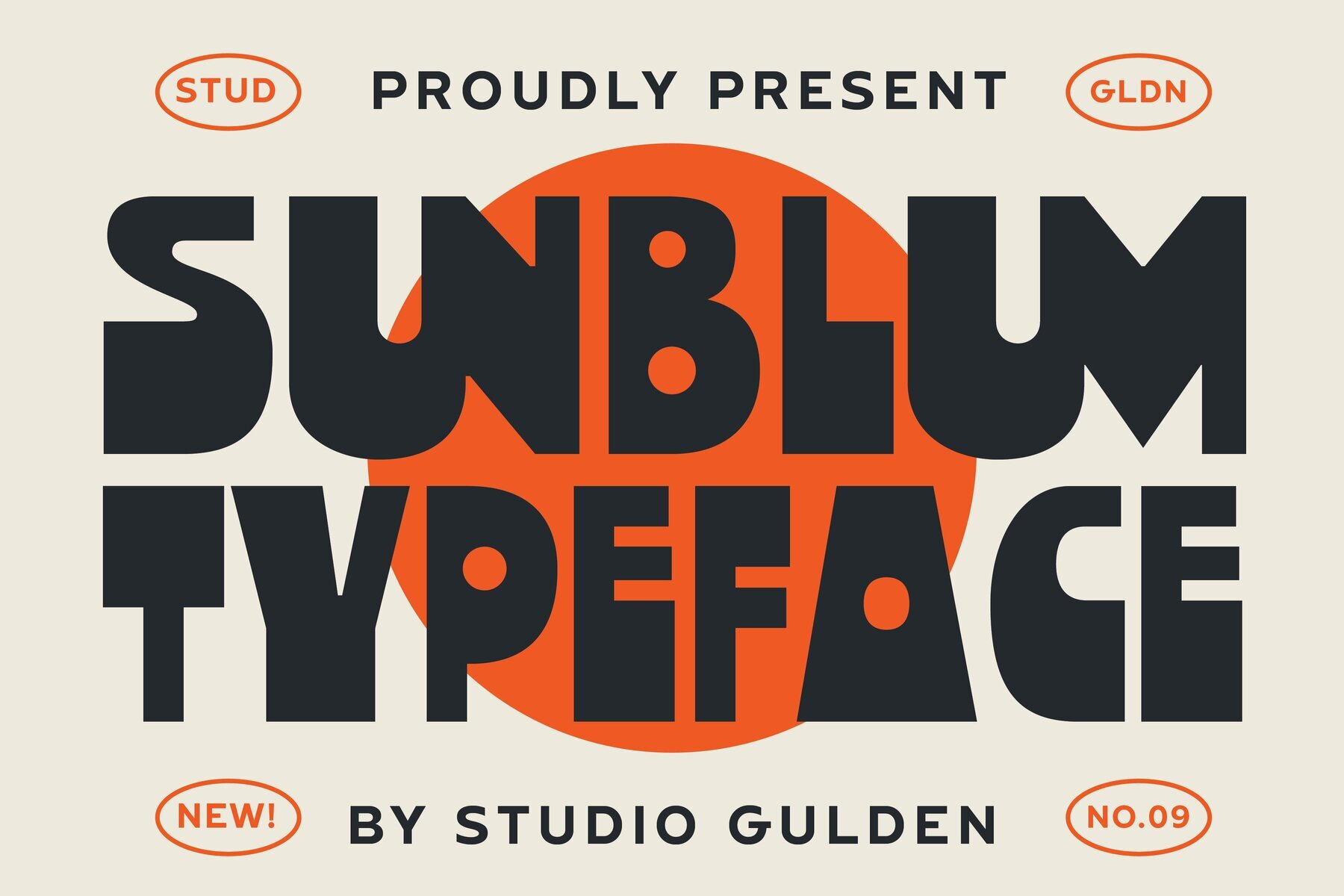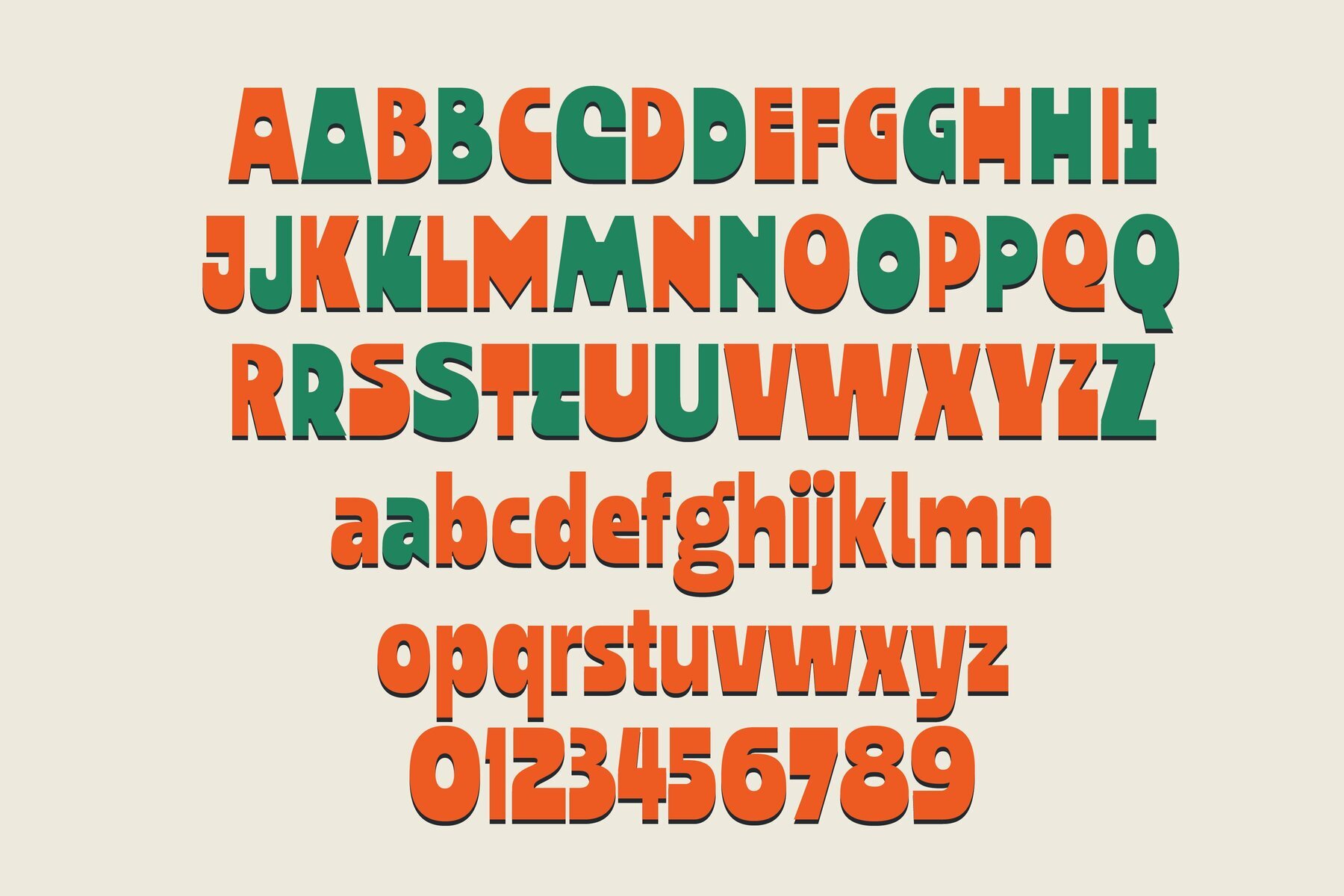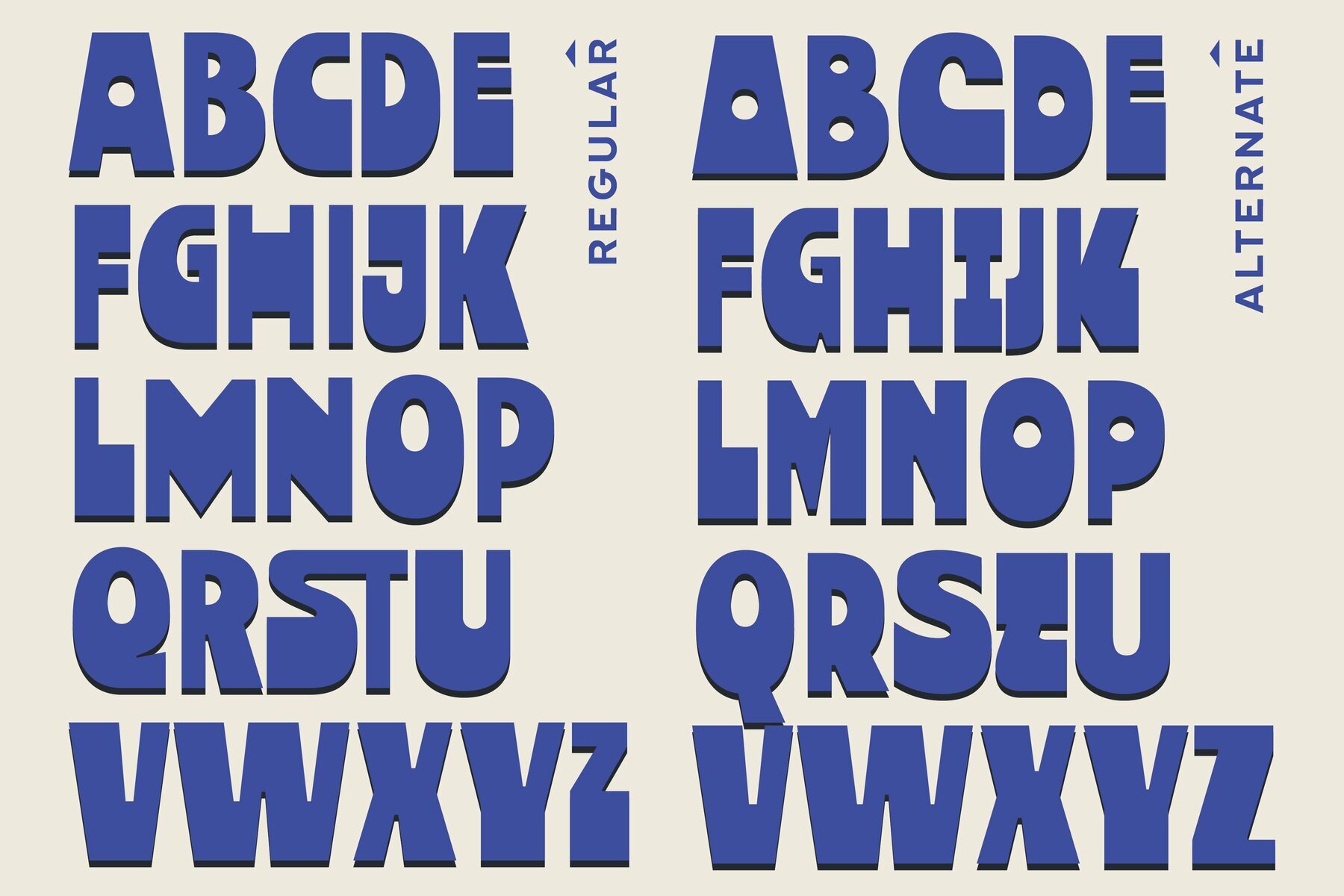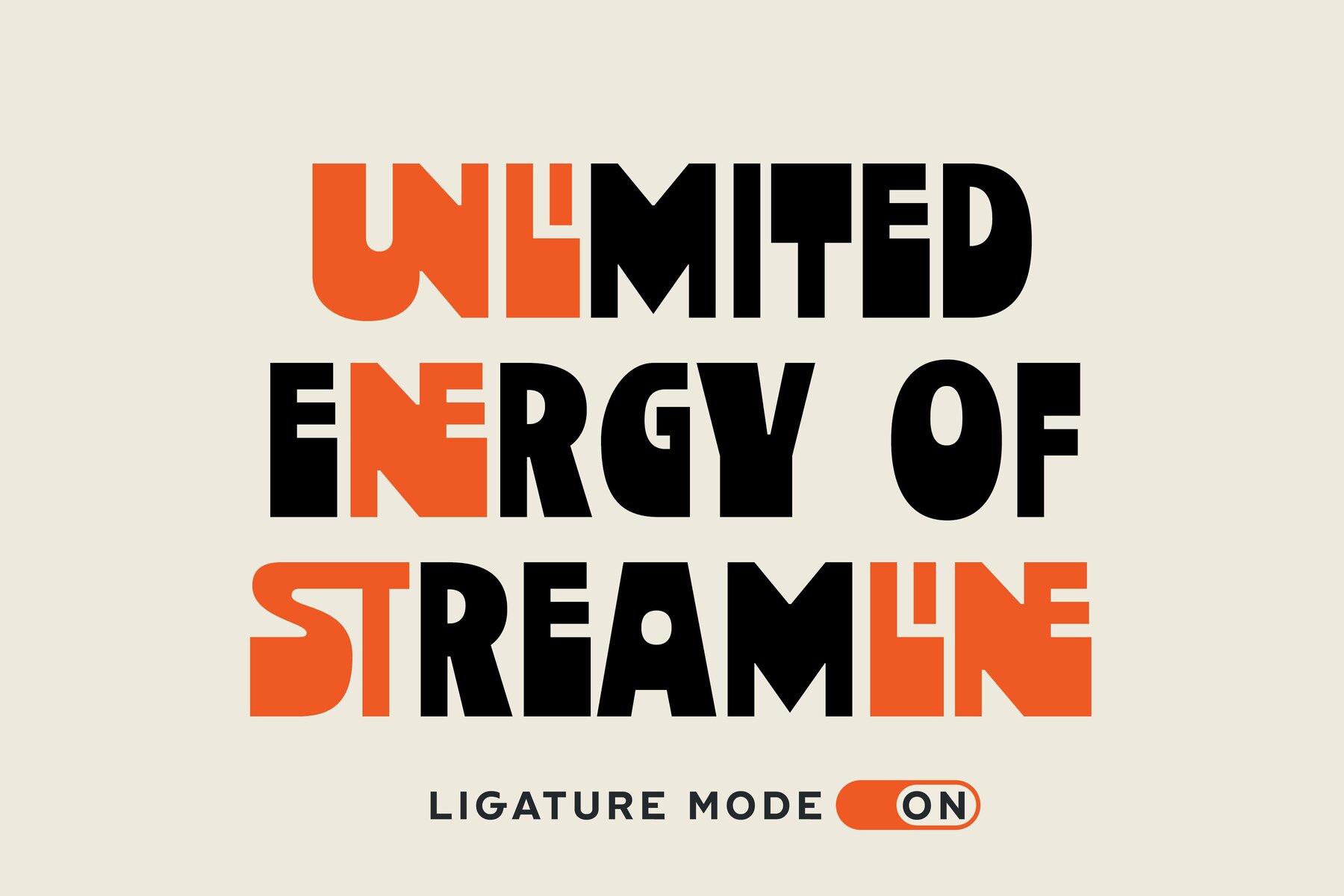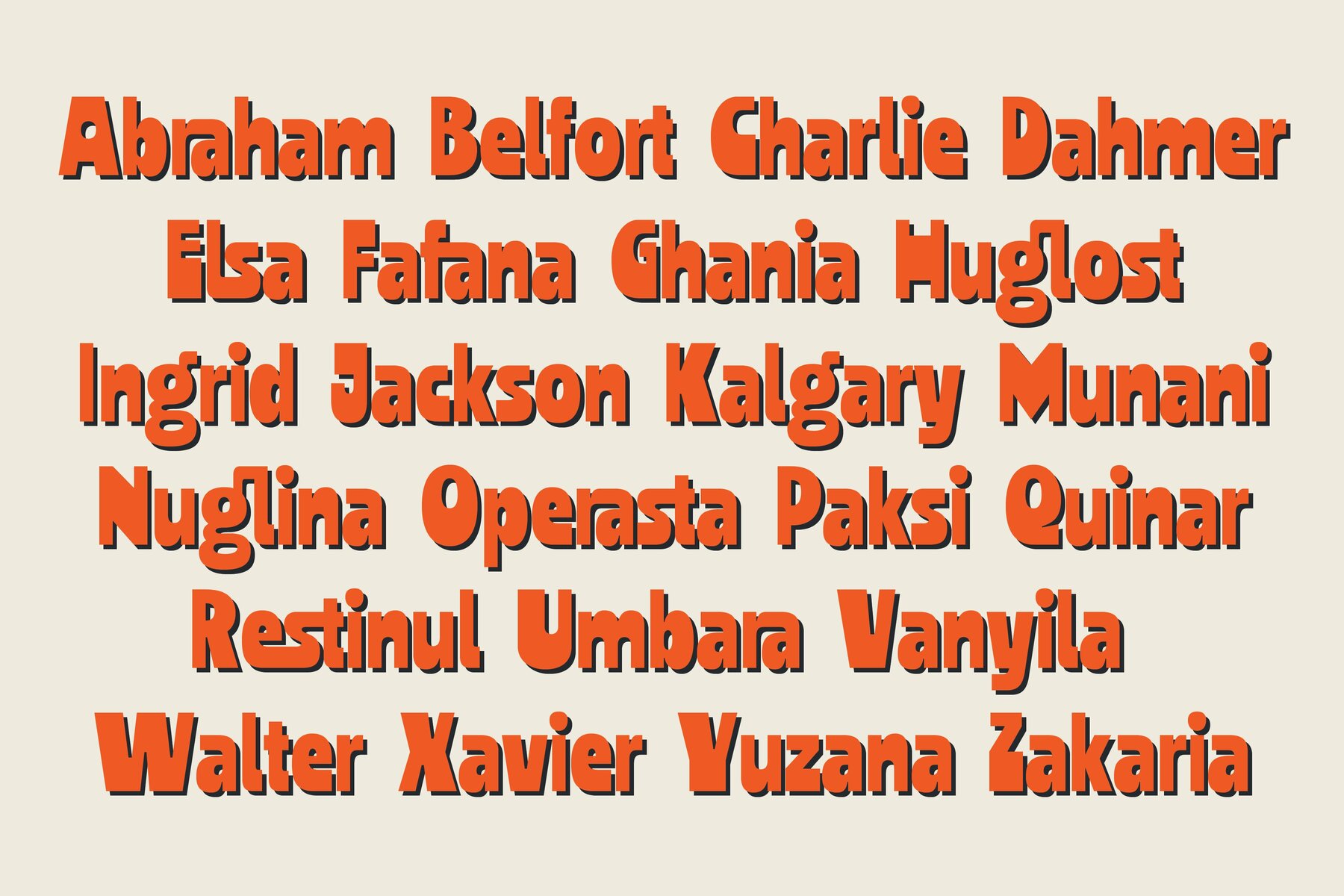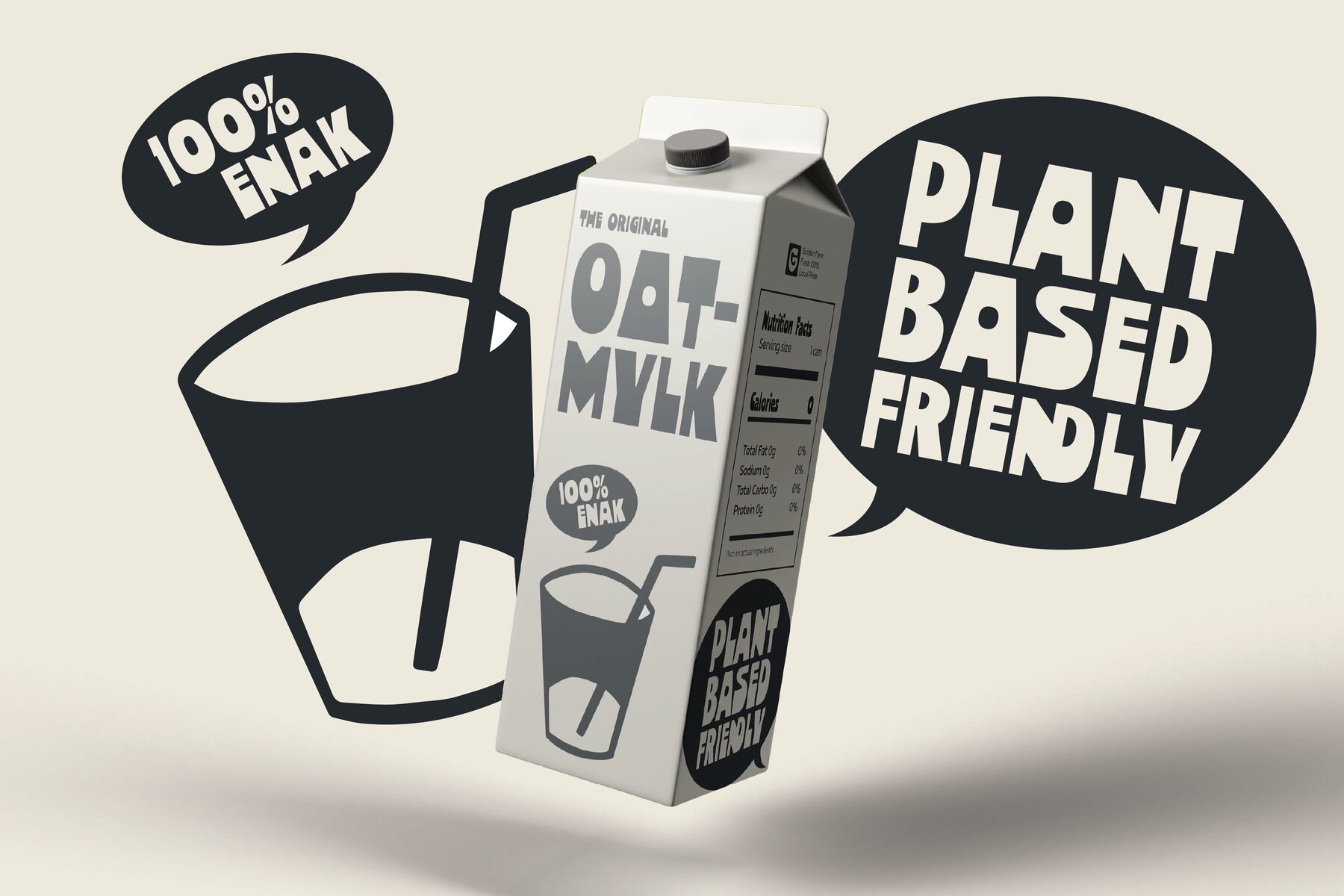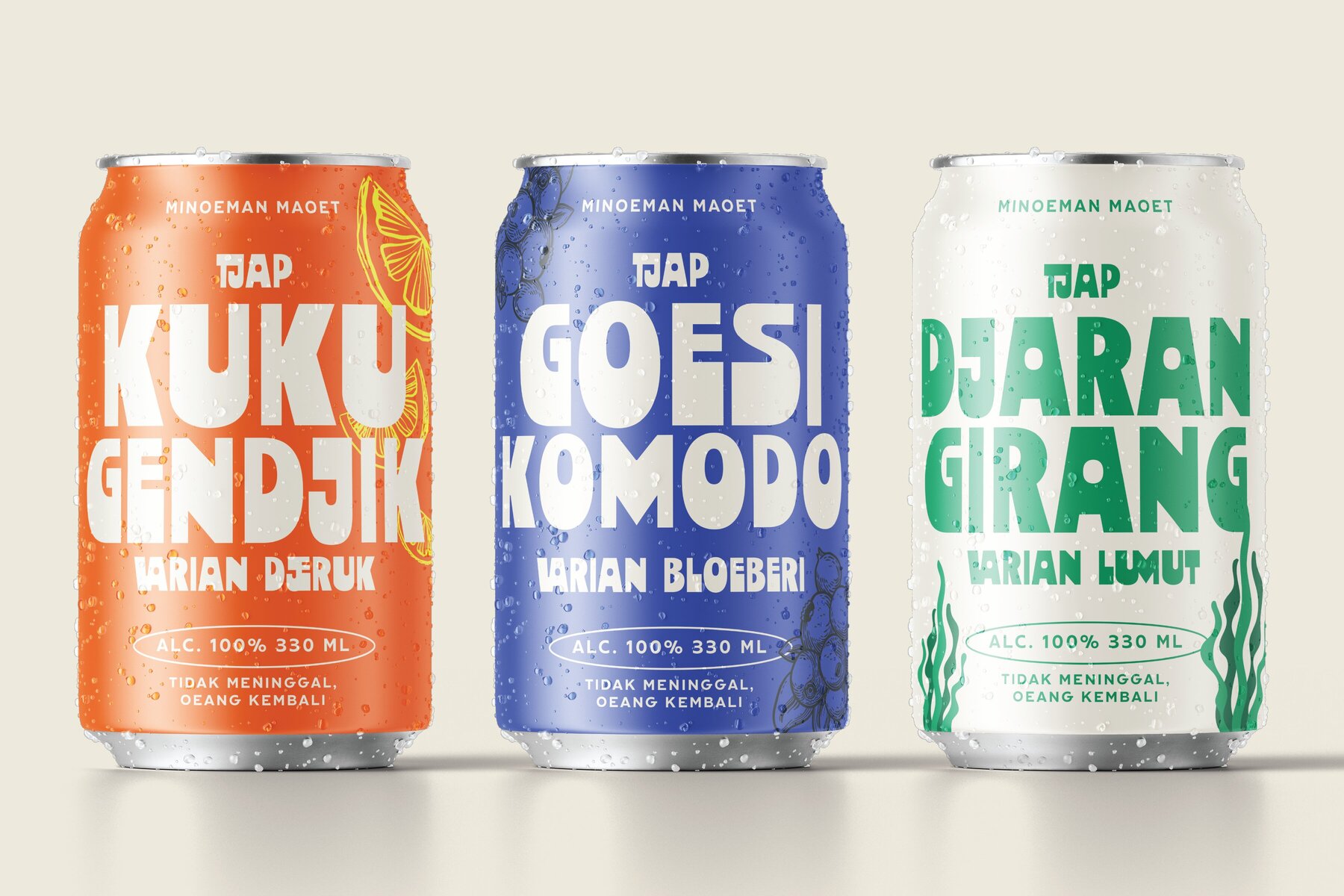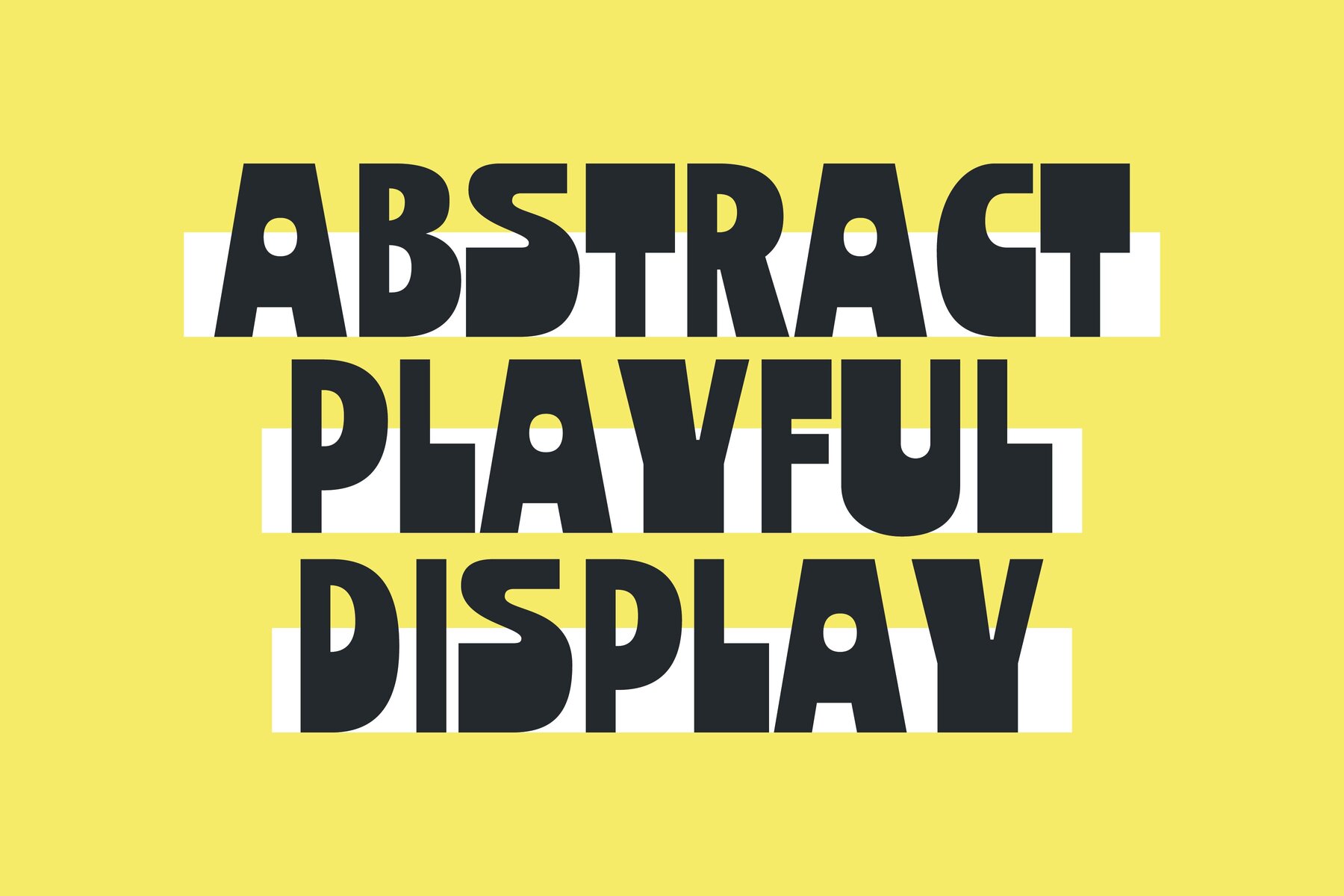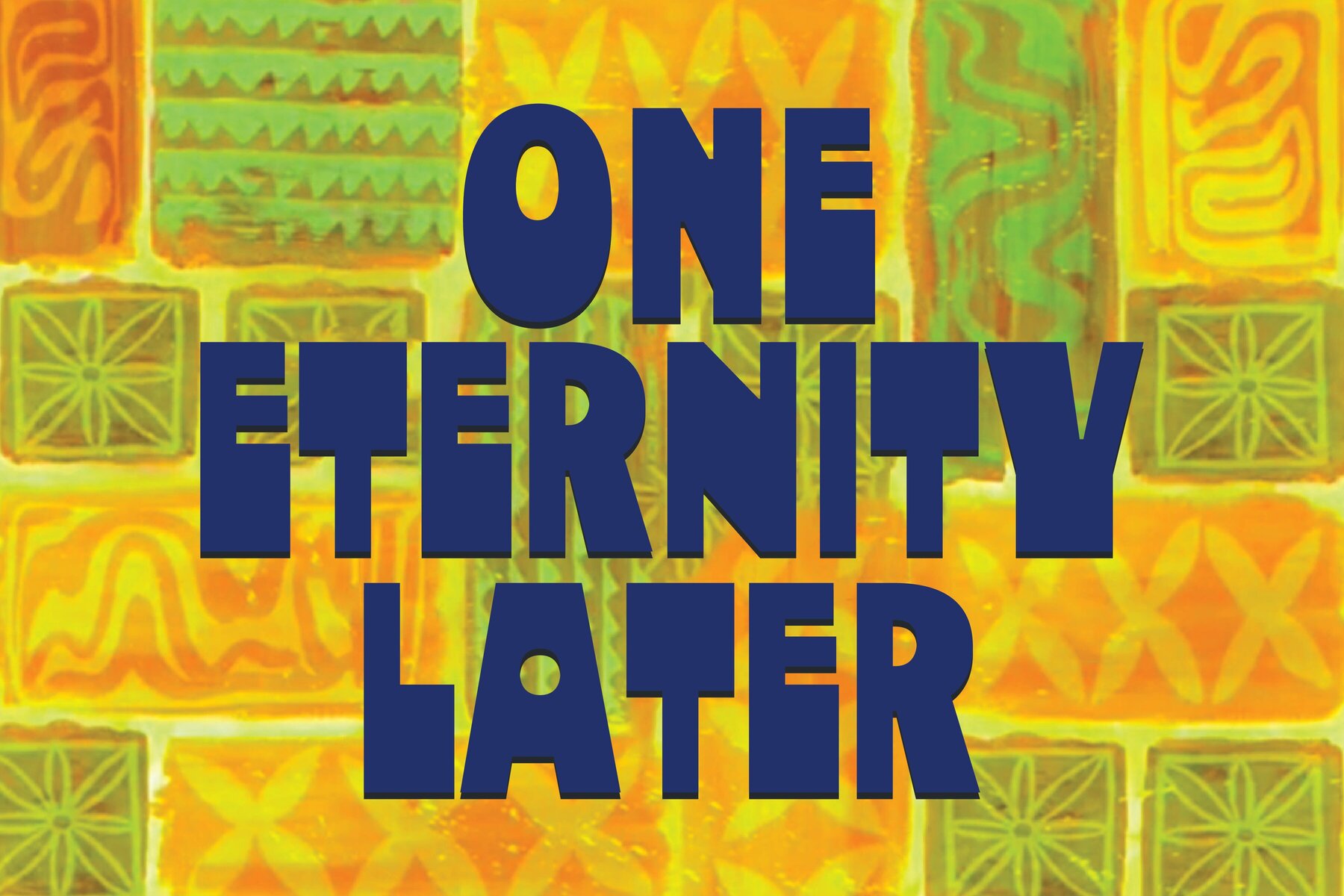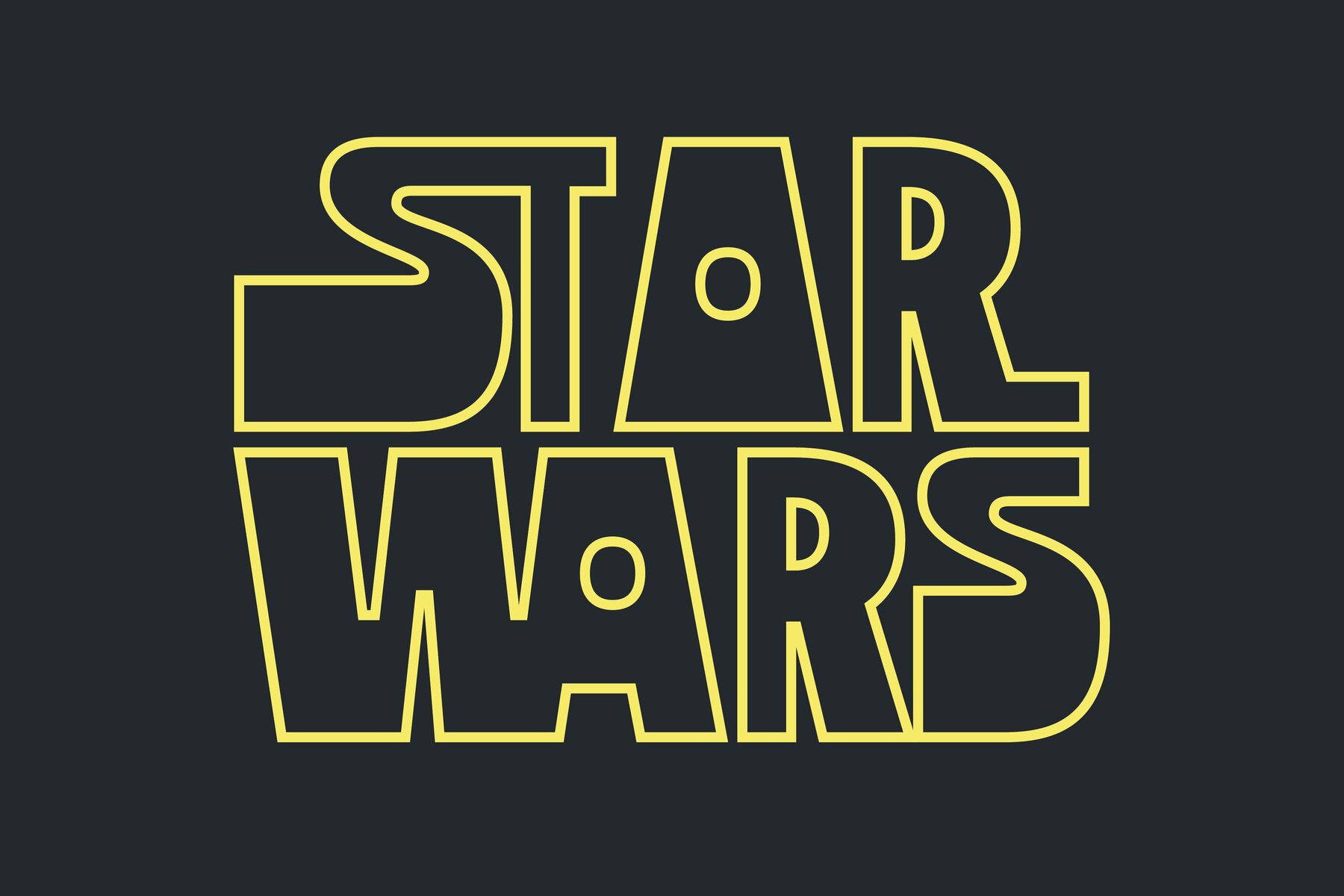
SG Sunblum Font
SG Sunblum Regular
Introducing the "SG-SUNBLUM" font, a modern sans-serif typeface that stands out from the crowd with its extraordinary design elements. This font features sleek, elongated lines and bold, asymmetrical letterforms that give it a dynamic and eye-catching appearance. It also includes an extensive range of special characters and multilingual support for added versatility. Whether you're looking for a font for a headline, logo, or any other design project, SG-SUNBLUM is sure to make a bold statement and capture attention.